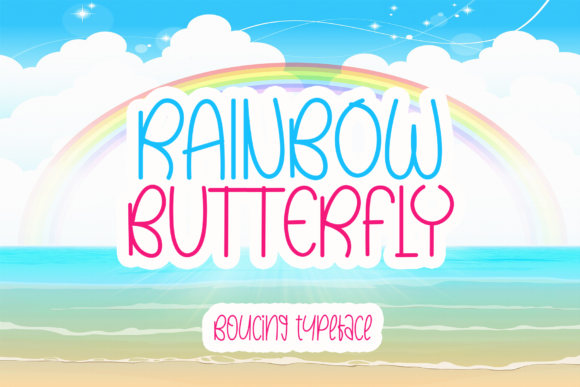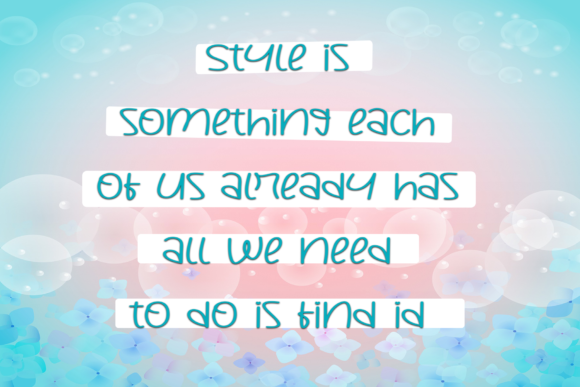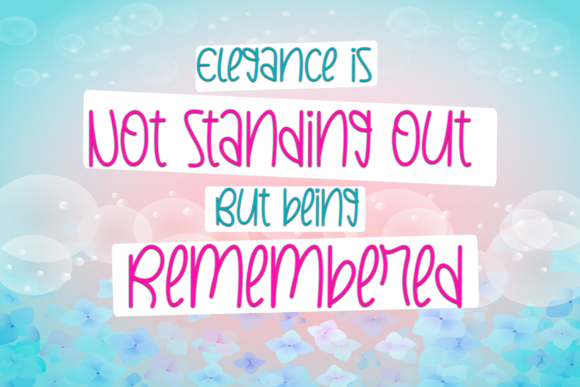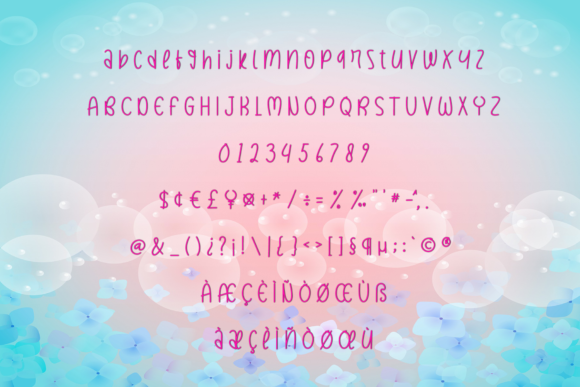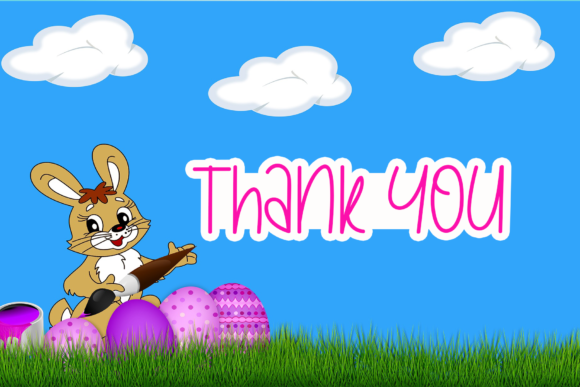
Rainbow Butterfly Font
About Rainbow Butterfly Font
Rainbow Butterfly is a delightful and charming handwriting font meticulously crafted for a multitude of applications, including packaging products, invitation cards, flyers, mockups, event posters, and any design project that demands high-quality vibes. With its cute and playful aesthetic, this font adds a touch of whimsy to your creations while maintaining a level of sophistication that suits a diverse range of contexts.
Designed with care, Rainbow Butterfly possesses a beautiful and balanced character that seamlessly integrates into a large design pool. Its versatility makes it an ideal choice for a wide array of projects, allowing you to infuse a sense of creativity and vibrancy into your designs. Whether you are working on product packaging that requires a touch of playfulness or crafting event posters that demand attention, Rainbow Butterfly proves to be a reliable and visually pleasing companion.
The cute handwriting style of Rainbow Butterfly brings a sense of warmth and friendliness to your text, making it particularly well-suited for invitations and cards. Its whimsical nature is perfect for conveying a lighthearted and joyful mood, setting the tone for celebrations and special occasions. The font’s adaptability ensures that it can cater to diverse design needs, making it an excellent choice for those looking to add a unique and eye-catching element to their projects.
The high-quality vibes emanating from Rainbow Butterfly are evident in its meticulous design. Each character is crafted with precision, contributing to the font’s overall aesthetic appeal. When applied to mockups or product packaging, Rainbow Butterfly elevates the visual presentation, giving your designs a distinctive and memorable edge.
In essence, Rainbow Butterfly is more than just a font; it’s a creative tool that injects fun and personality into your designs. Its versatility, coupled with a balance of cuteness and sophistication, makes it an excellent choice for designers seeking to create standout visual experiences. So, whether you’re working on packaging, invitations, flyers, or event posters, let Rainbow Butterfly be the charming touch that brings your high-quality vibes to life.